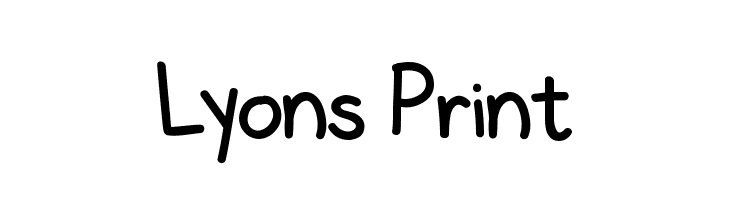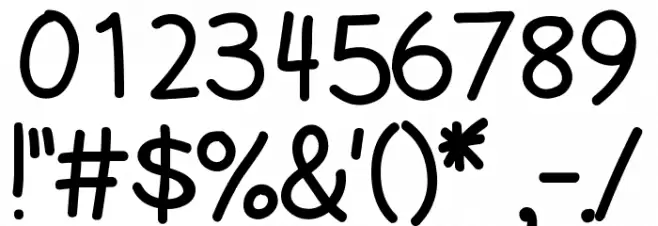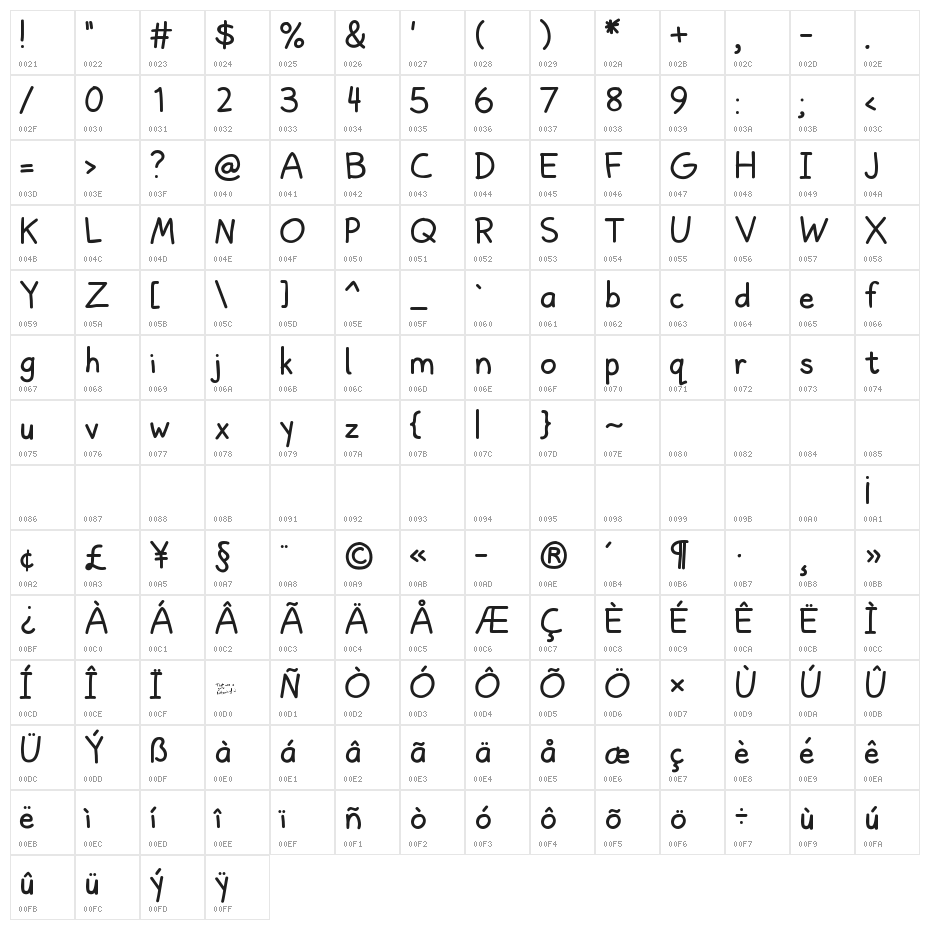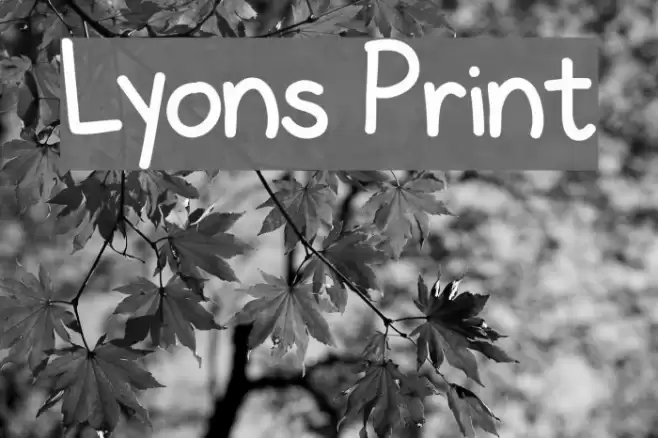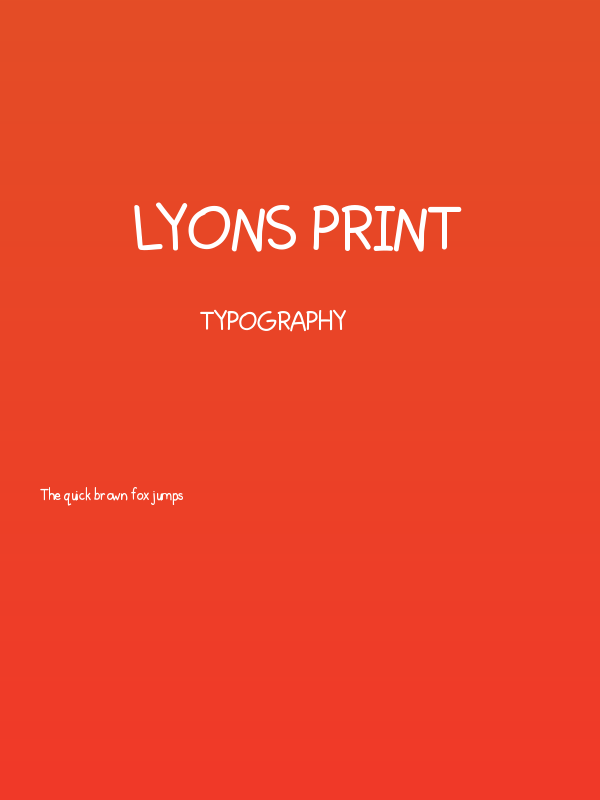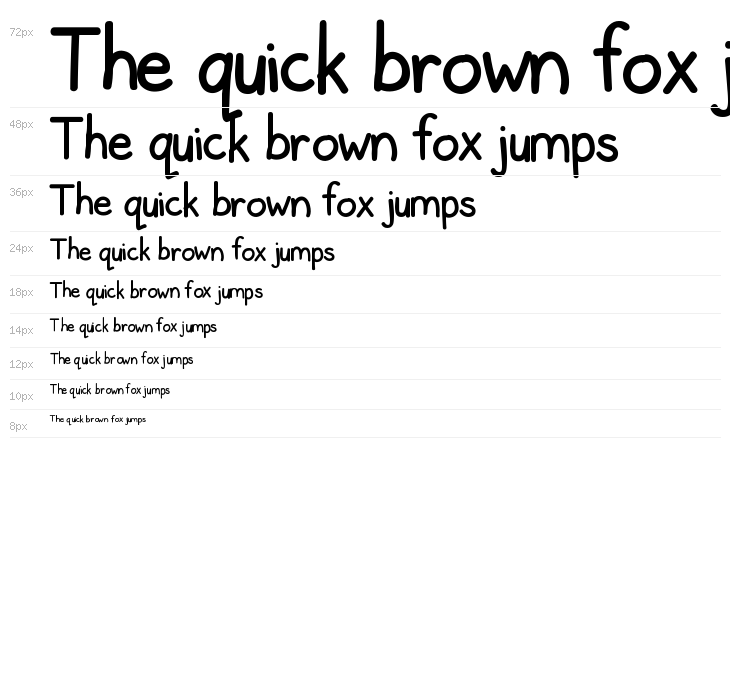
Lyons Print Font
Lyons Print Description
This playful and casual font features a handwritten style with smooth, rounded edges and a slightly uneven baseline, giving it a friendly and approachable appearance. The characters are bold and well-spaced, making them easily readable. The uppercase and lowercase letters maintain a consistent style, with a slight slant that adds to the informal feel. Numbers and special characters are crafted with the same playful touch, ensuring a cohesive look across all text elements. This font is ideal for projects that require a personal, informal touch.
Overall StyleCasual
Use CaseHeadlines, Logos, Informal Text
Proposed ProjectsIdeal for children's books, greeting cards, casual branding, and playful social media graphics.